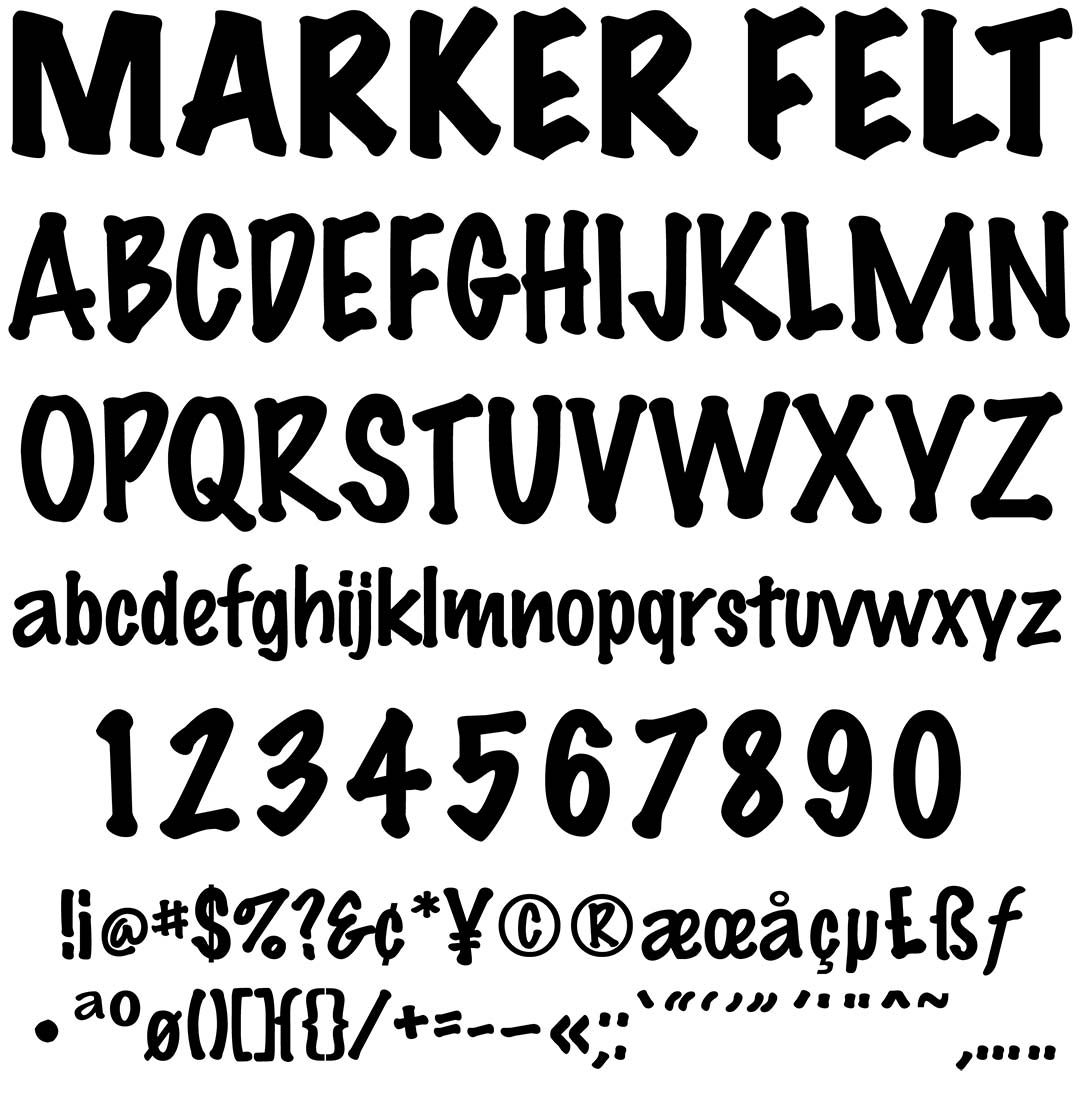
Marker Felt
Marker Felt Graffiti Alphabet
Marker Felt Graffiti Font Family
This is a very high quality font with a nearly full character set of well over 200 glyphs. This clean & condensed style has the look of handwritten letters with blobs at the end representing the marker soaking into the paper.